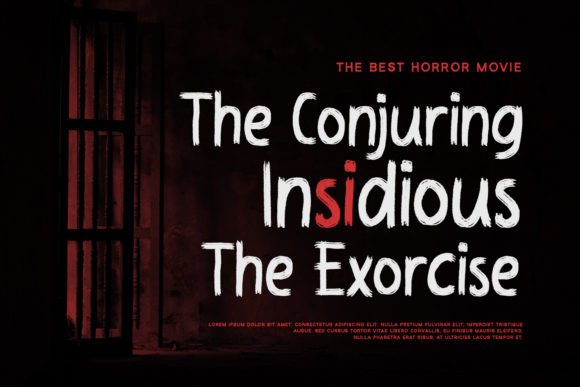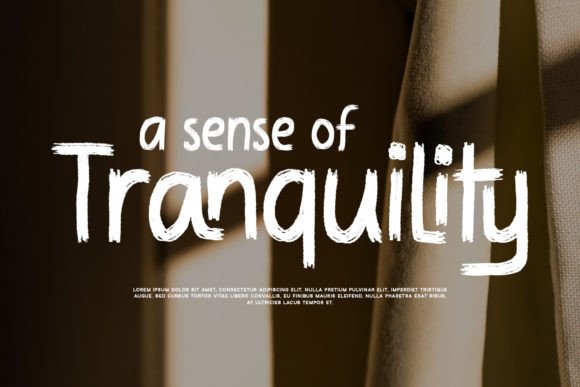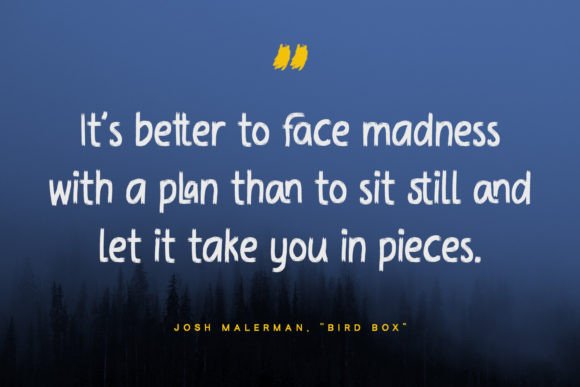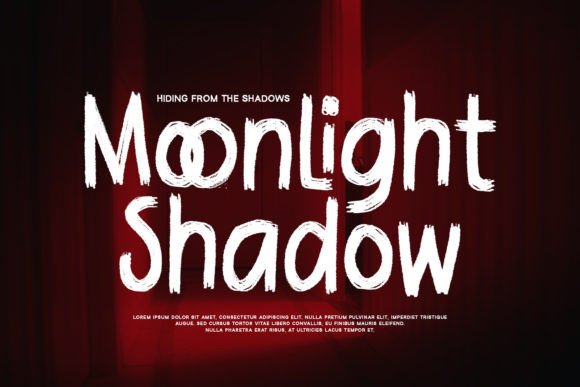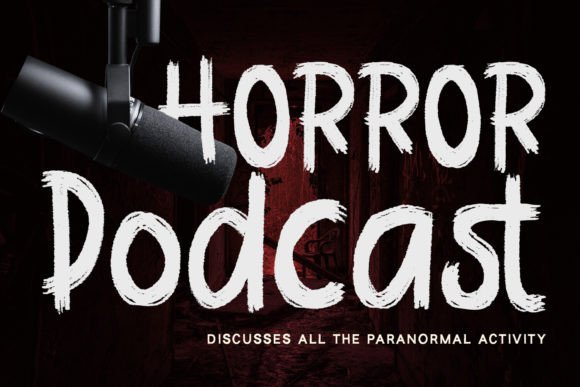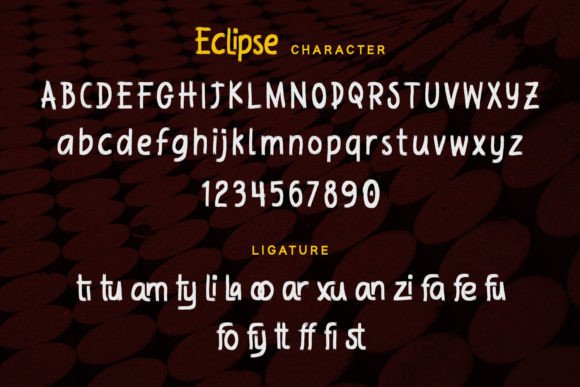
Eclipse Font: Elevate Your Designs with a Modern and Unique Display Font
In the world of design, typography plays a crucial role in conveying messages, evoking emotions, and creating visual identities. When it comes to making a statement, a well-crafted display font can be a game-changer. Introducing Eclipse Font, a modern and unique display font designed to elevate your designs and leave a lasting impression. In this article, we’ll explore the features, benefits, and uses of Eclipse Font, and why it’s a must-have for designers and crafters.
What is Eclipse Font?
Eclipse Font is a display font that boasts a distinctive and contemporary feel. Its unique design makes it perfect for a wide range of applications, from magazines and packaging to posters, shopping bags, t-shirts, book covers, photography, and special events. Whether you’re a professional designer or a crafty DIY enthusiast, Eclipse Font is an excellent addition to your typography arsenal.
Key Features of Eclipse Font
- Unique and Modern Design: Eclipse Font features a one-of-a-kind design that’s both modern and stylish. Its sleek lines, curves, and shapes make it perfect for creating visually stunning designs.
- High Versatility: This display font is incredibly versatile, making it suitable for a wide range of design projects, from print materials to digital applications.
- Excellent Legibility: Despite its unique design, Eclipse Font remains highly legible, ensuring that your message is conveyed clearly and effectively.
Uses of Eclipse Font
Eclipse Font is an incredibly versatile font that can be used in various design projects, including:
- Magazines and Editorial Design: Add a touch of sophistication to your magazine layouts, articles, and headlines with Eclipse Font.
- Packaging Design: Make your product stand out on store shelves with eye-catching packaging designs featuring Eclipse Font.
- Poster Design: Create striking posters that grab attention with Eclipse Font’s bold and modern design.
- Fashion and Apparel: Use Eclipse Font to create stylish and memorable designs for t-shirts, hoodies, and other fashion items.
- Book Covers: Give your book covers a professional and eye-catching look with Eclipse Font.
- Photography: Add a touch of elegance to your photography projects, such as portfolios, exhibitions, and social media graphics.
- Special Events: Create memorable branding and promotional materials for special events, such as weddings, conferences, and festivals.
Why Choose Eclipse Font?
With so many display fonts available, why choose Eclipse Font? Here are a few compelling reasons:
- Unique Design: Eclipse Font offers a fresh and distinctive design that will set your designs apart from the crowd.
- High-Quality: This font is crafted with attention to detail, ensuring a high level of quality and consistency.
Eclipse Font is a versatile and stylish display font that’s perfect for designers and crafters looking to elevate their designs. With its unique and modern feel, high legibility, and ease of use, Eclipse Font is an excellent addition to any design project. Whether you’re working on a magazine, packaging, poster, or any other design project, Eclipse Font is sure to make a lasting impression.